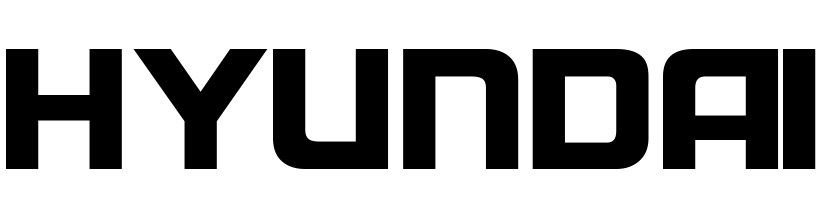
Hyundai Font
AutomobileHyundai Motor Company, commonly known as Hyundai, is a South Korean multinational automotive manufacturer headquartered in Seoul, South Korea, and founded in 1967. It is also currently the fourth largest automaker after Toyota, General Motors, and Volkswagen. Hyundai is the Korean word for modern or current.